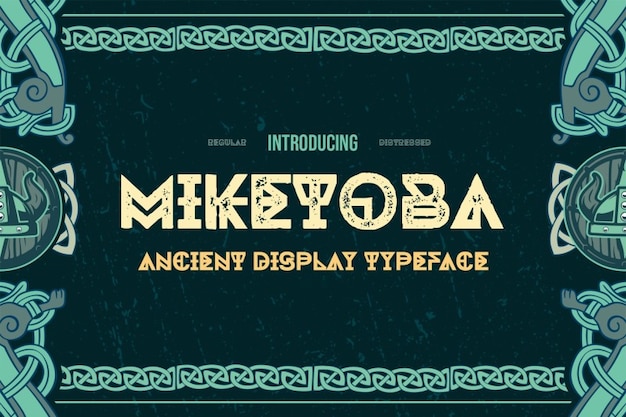
Miketoba Font
Drizy Studio
"Miketoba" is an ancient font inspired by Nordic runes and Viking lore. With textured characters reminiscent of weathered stone carvings, it evokes the mystique of ancient times. Perfect for historical projects, fantasy novels, or themed events, "Miketoba" brings the spirit of the Vikings to life with its authentic and evocative style.